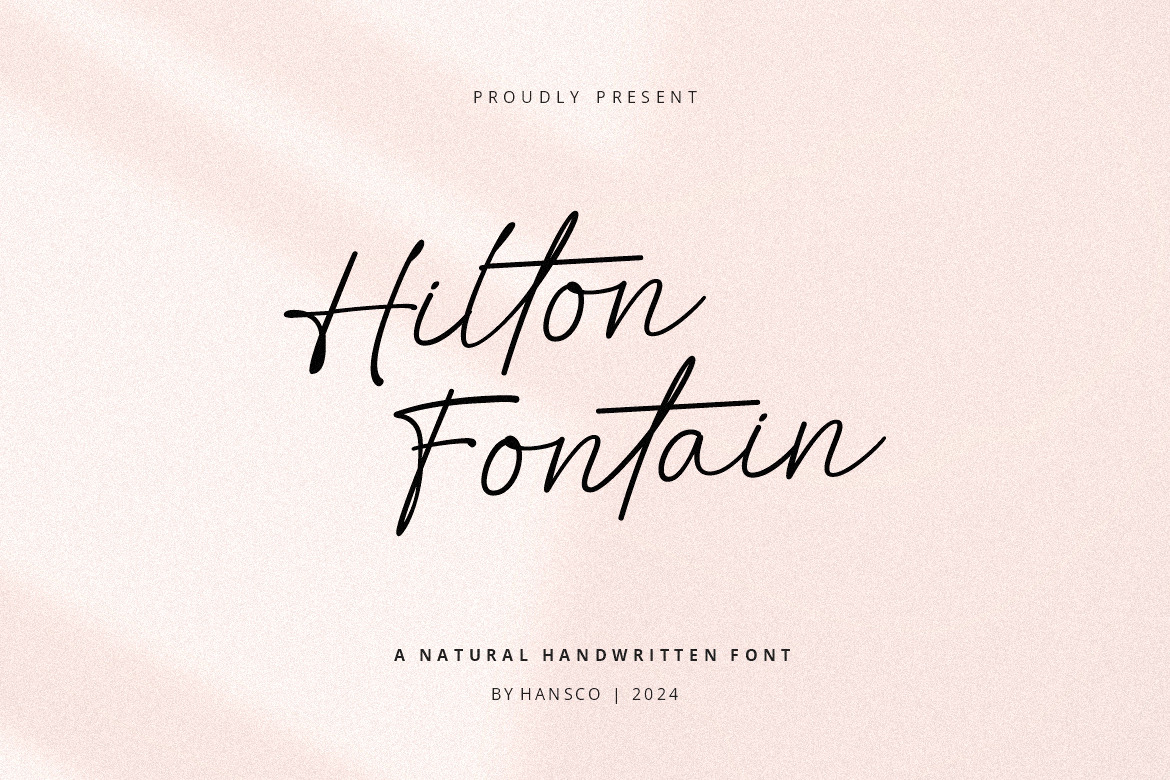
Hilton Fontain | Handwritten Font
Hilton Fontain is a modern, casually and feminine handwritten font. Some projects that are suitable for this font include quotes, menus, taglines, flyers, posters, invitations, greeting cards, posters, business cards, clothing, letters, stationery and many others. Comes with a full uppercase, lowercase, numbers, punctuation, alternate character and with extensive language support, it's going to be a very usable addition to your project.